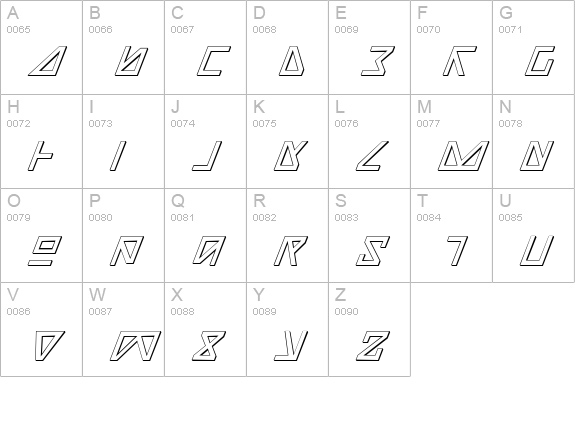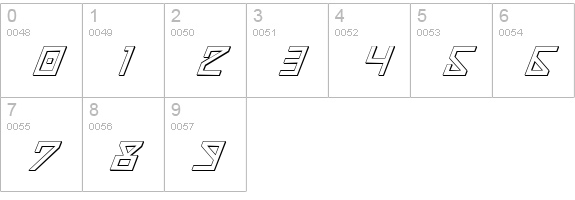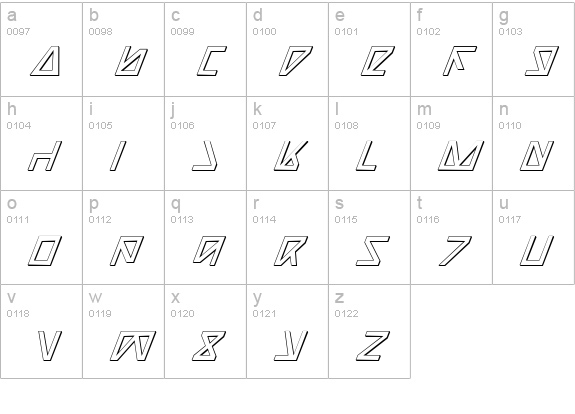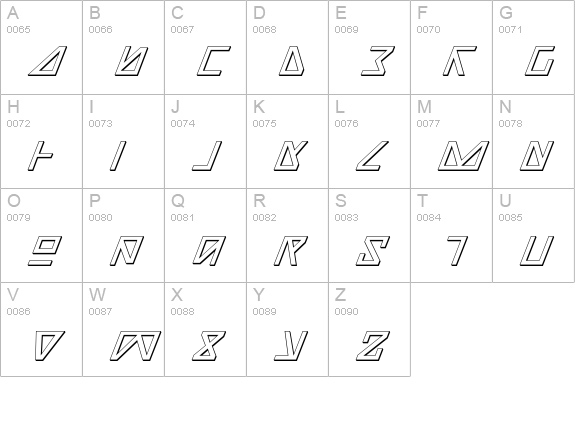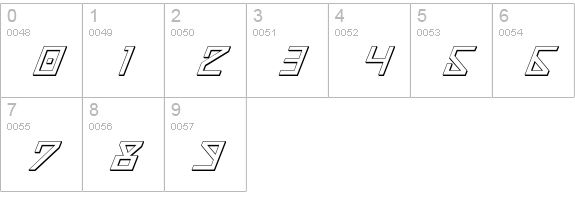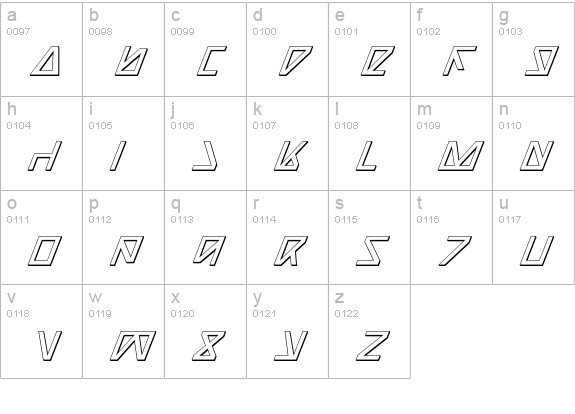
Nick Turbo Italic 3D is a distinctive, italic variant in the Nick typeface family \xE2\x80\x94 well suited to design and typography projects.
Nick Turbo Italic 3D font is a bold and eye-catching typeface that exudes a sense of speed and power. Its sleek and modern design features dynamic, three-dimensional letterforms that add depth and dimension to any project. Perfect for headlines, titles, and branding materials, this font commands attention and makes a strong visual impact. What's even better is that Nick Turbo Italic 3D font is available for free download at FontsMarket.com. Now you can easily access this striking font and incorporate it into your designs without any cost. Don't miss out on this opportunity to elevate your projects with the dynamic and energetic style of Nick Turbo Italic 3D font.